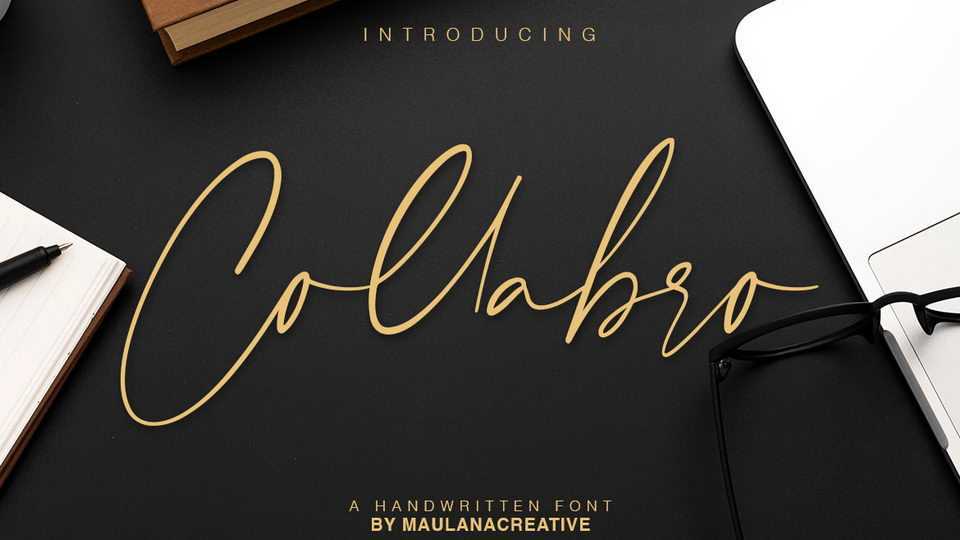
Download Collabro font, a stylish signature script to give your designs an authentic handcrafted feel. Collabro font is perfectly suited to signature, stationery, logo, typography quotes, magazine or book cover and more.
Designer: Maulana Creative